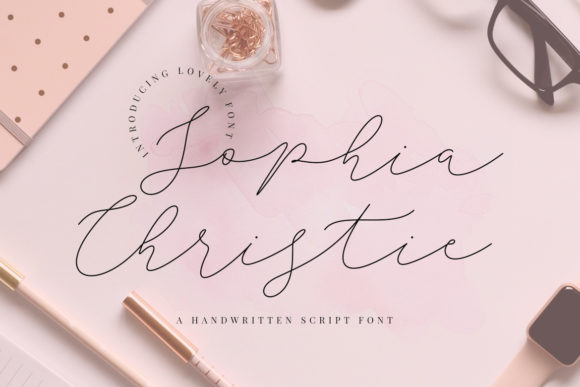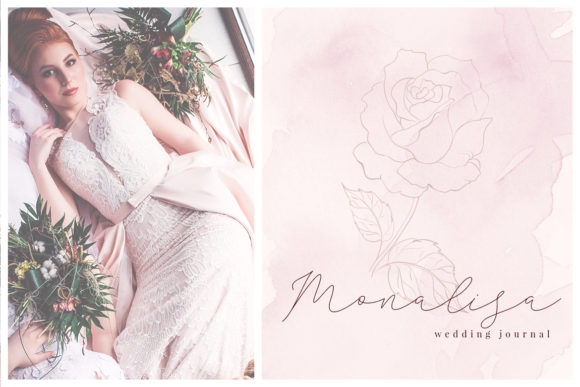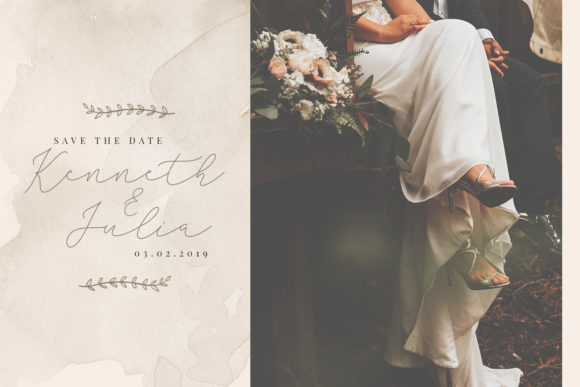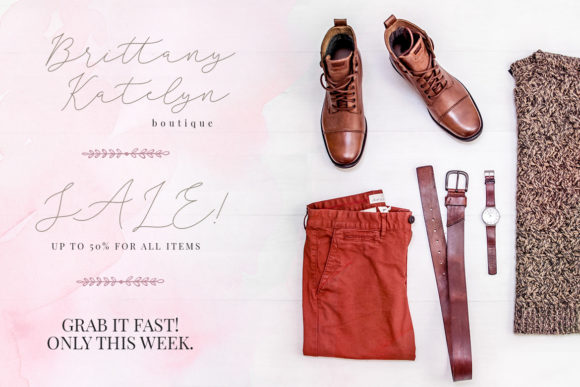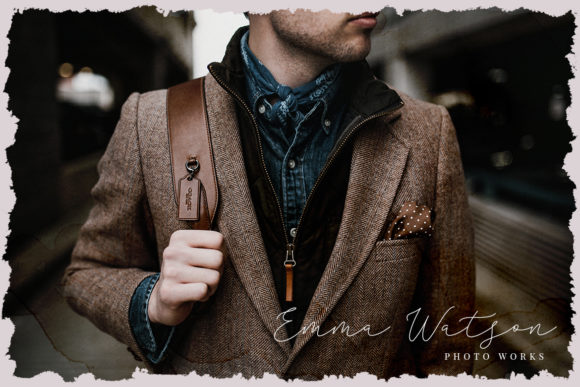
Sophia Christie Script Font
About Sophia Christie Script Font
The Sophia Christie is a light, lovely signature script font. It has an amazing elegant calligraphy style with sophisticated accents.
It’s perfect for branding projects, logos, wedding designs, social media posts, advertisements, product packaging, product designs, label, photography, watermarks,and every other design that needs a handwritten feel.